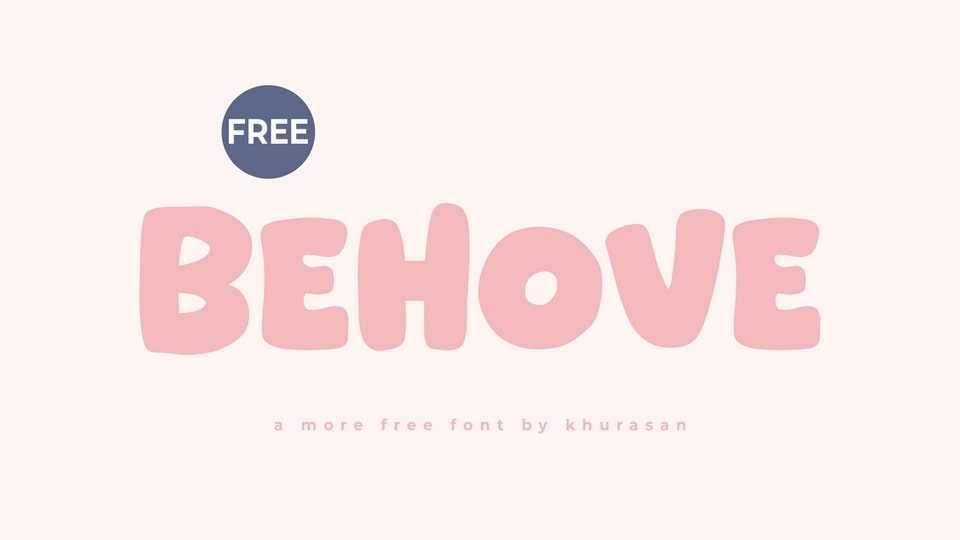
Download Behove font, a sweet and bubbly hand-drawn display typeface full of charm and softness. Its rounded forms and slightly irregular strokes give it a friendly, human touch — like letters molded from marshmallow.